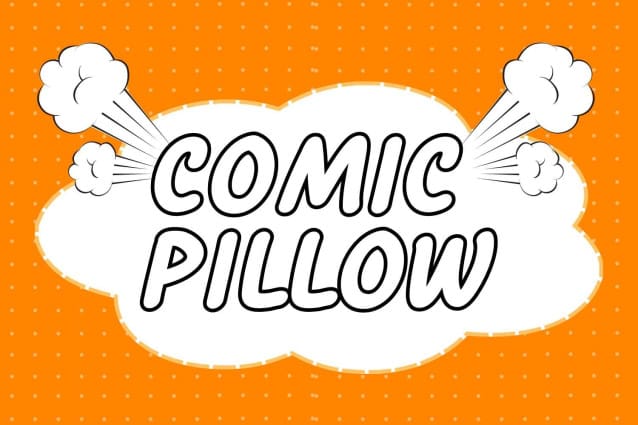
Comic Pillow Font
Comic Pillow Font, is a chunky, comic, and cartoon display font. With its neat and joyful personality, this font will enhance any project you wish to create!